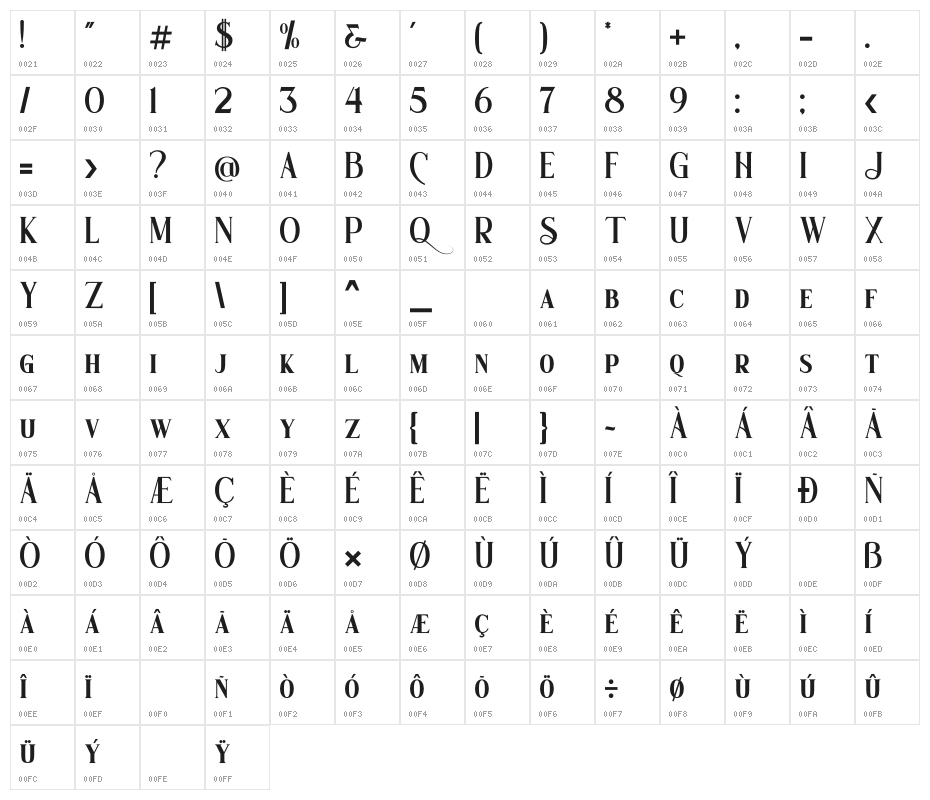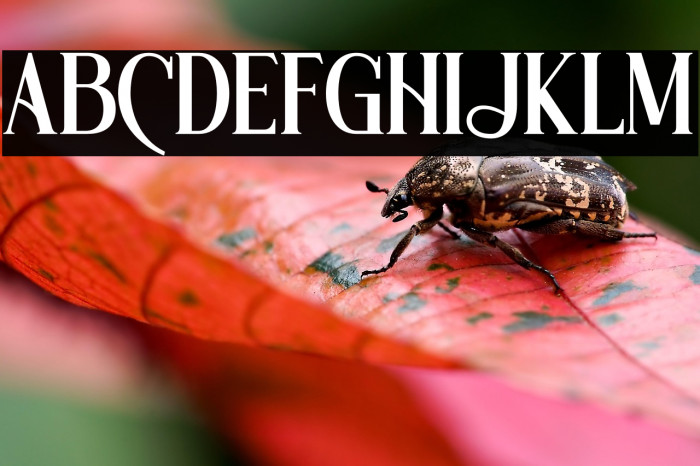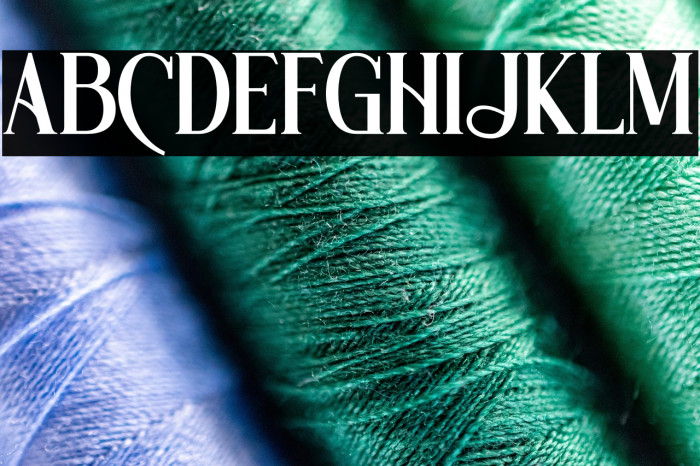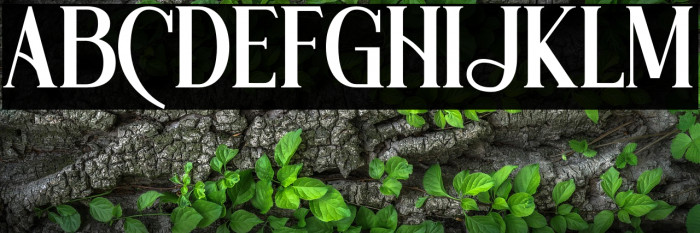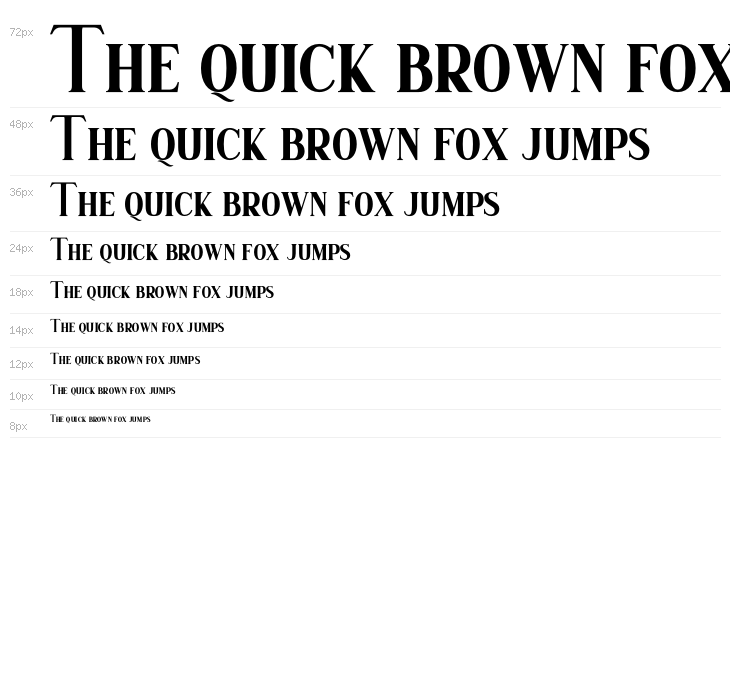
Wishleman Font
Wishleman Description
This font features a bold and dramatic style with high contrast between thick and thin strokes, giving it a striking and elegant appearance. The uppercase letters are particularly distinctive, with unique flourishes and curves that add a touch of sophistication. The numerals and special characters maintain this bold aesthetic, ensuring consistency across all glyphs. The overall design is both modern and classic, making it versatile for various applications. The spacing between characters is normal, providing readability while maintaining its decorative flair.
| Overall Style | Modern, Classic |
| Proposed Projects | Ideal for branding, headlines, posters, and any project requiring a touch of elegance and impact. |